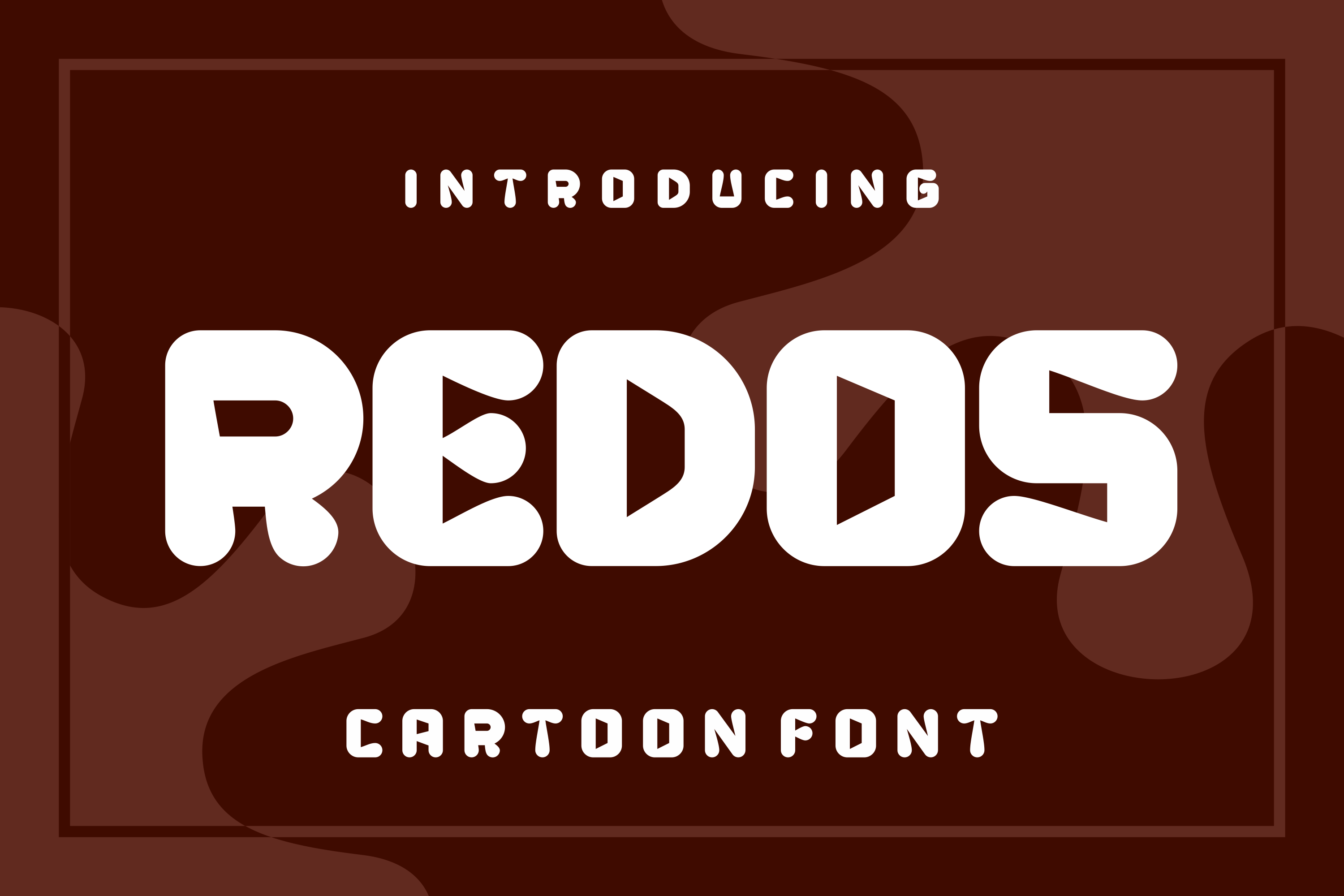
Redos - Comic Font
Redos - Comic Font Perfectly suited on print/screen. it’s perfect for Branding, name card, poster, logo, magazine, cover, banner, t-shirt and headers, or even large-scale artwork.